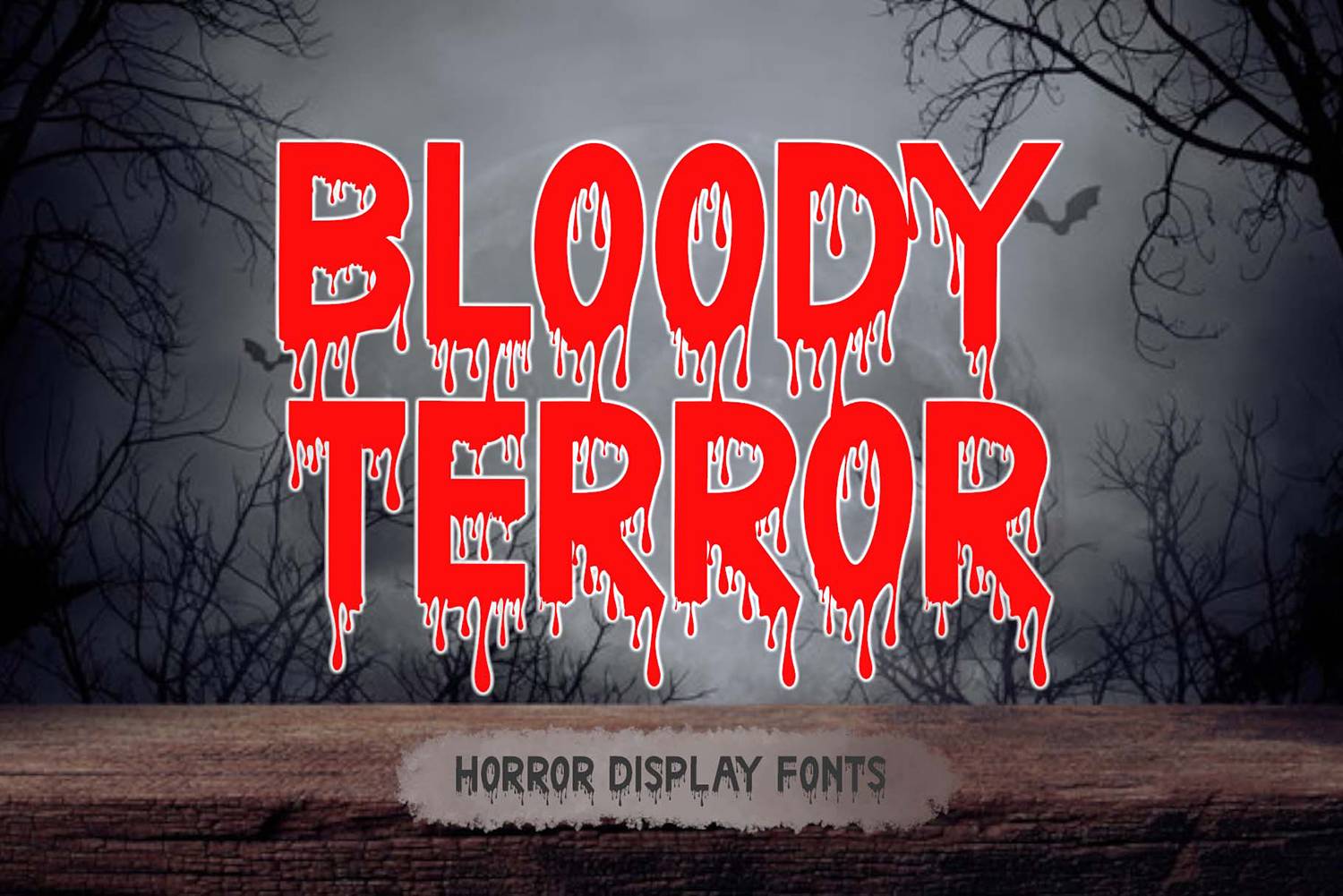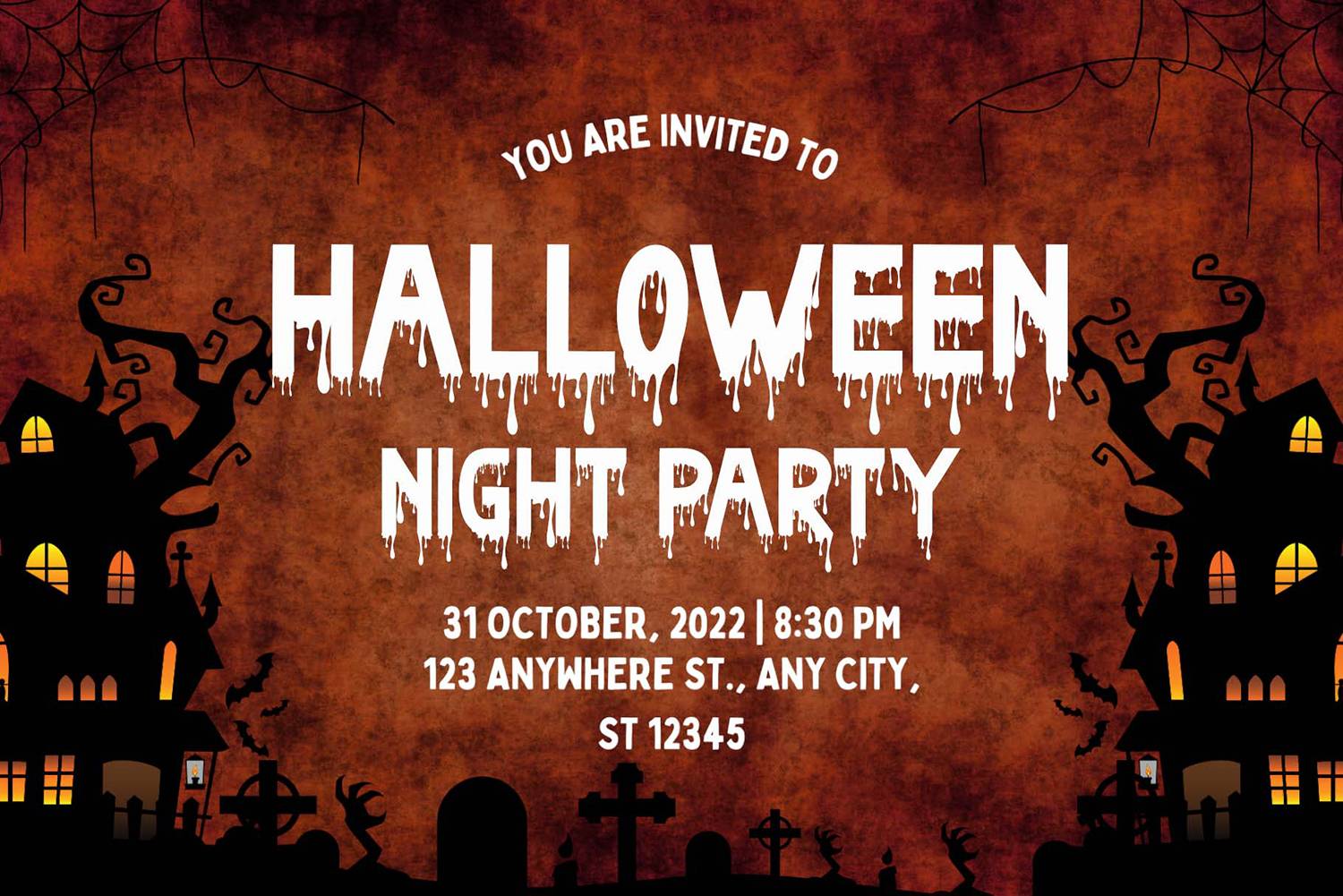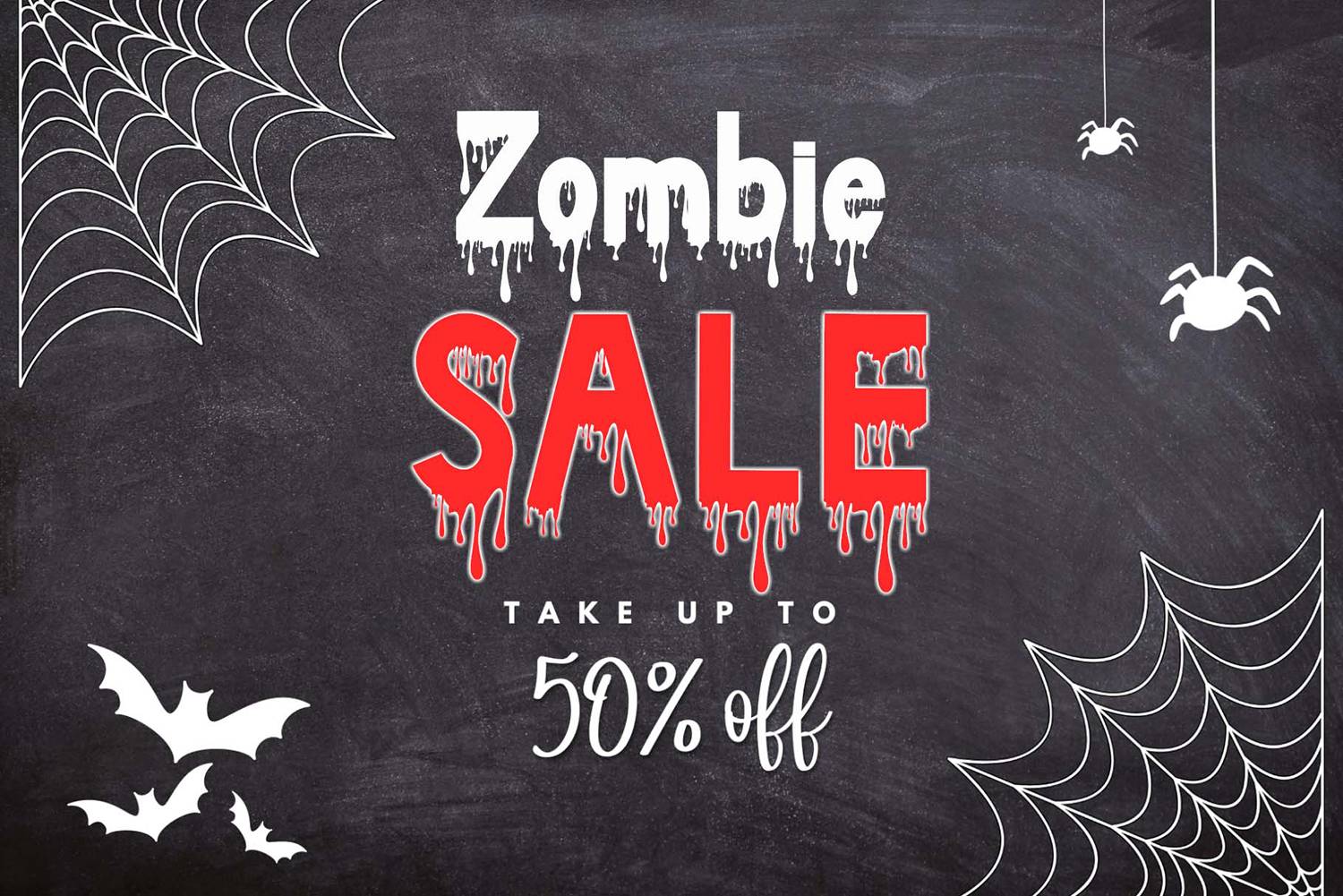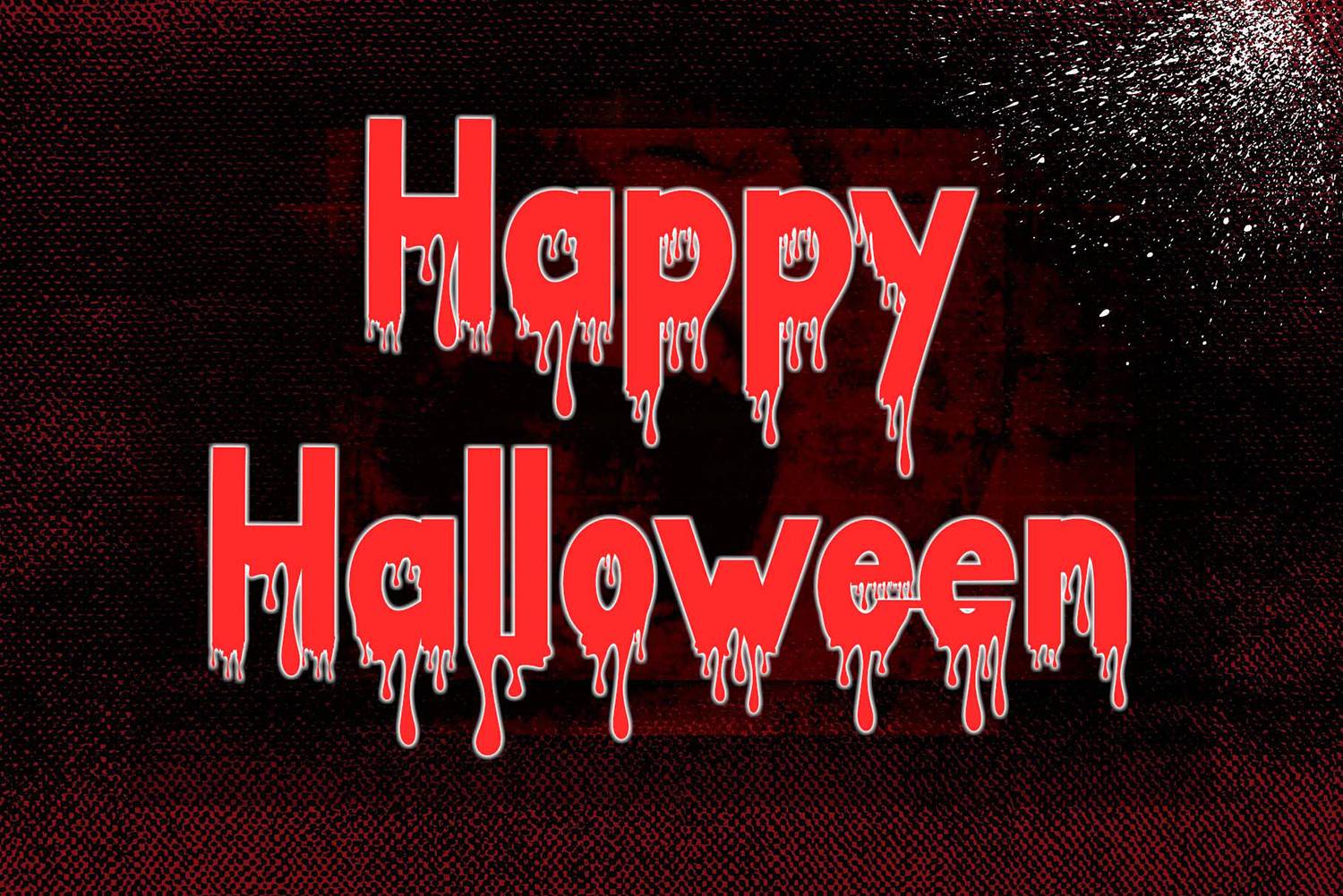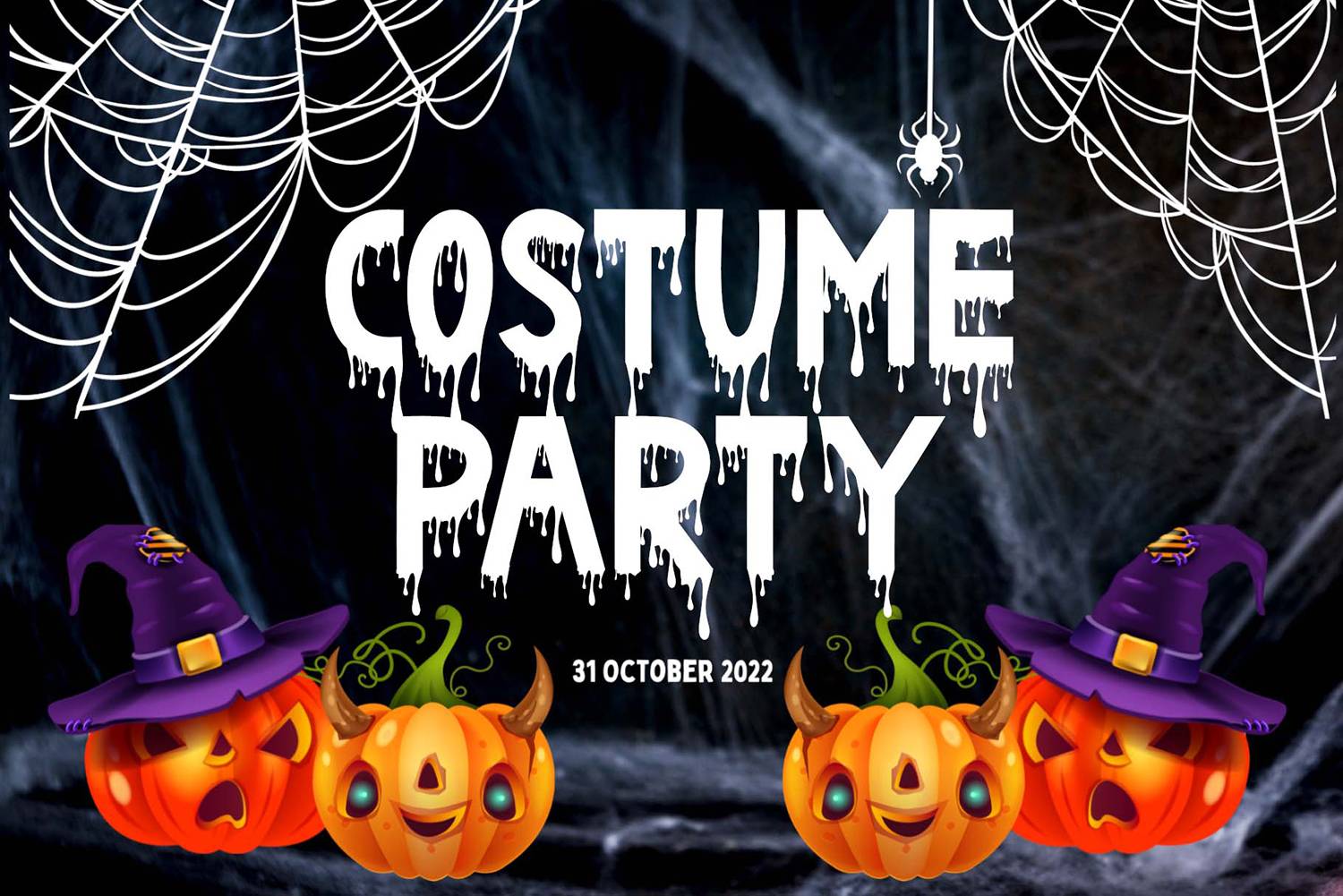
Bloody Terror is a bold, decorative display font with a dripping effect that evokes a spooky and eerie atmosphere. Its irregular, heavy letterforms mimic dripping liquid, making it perfect for horror-themed designs, Halloween projects, or anything needing a chilling, playful vibe. This font works best in headlines, posters, and branding where a strong, eye-catching impact is desired.
Bloody Terror Font
About Bloody Terror Font
| Font family | Bloody Terror Font |
| Release date | 2022-09-12 |
| Designer | Yoga Letter 2022 (Isroni Yoga Prasetya) |